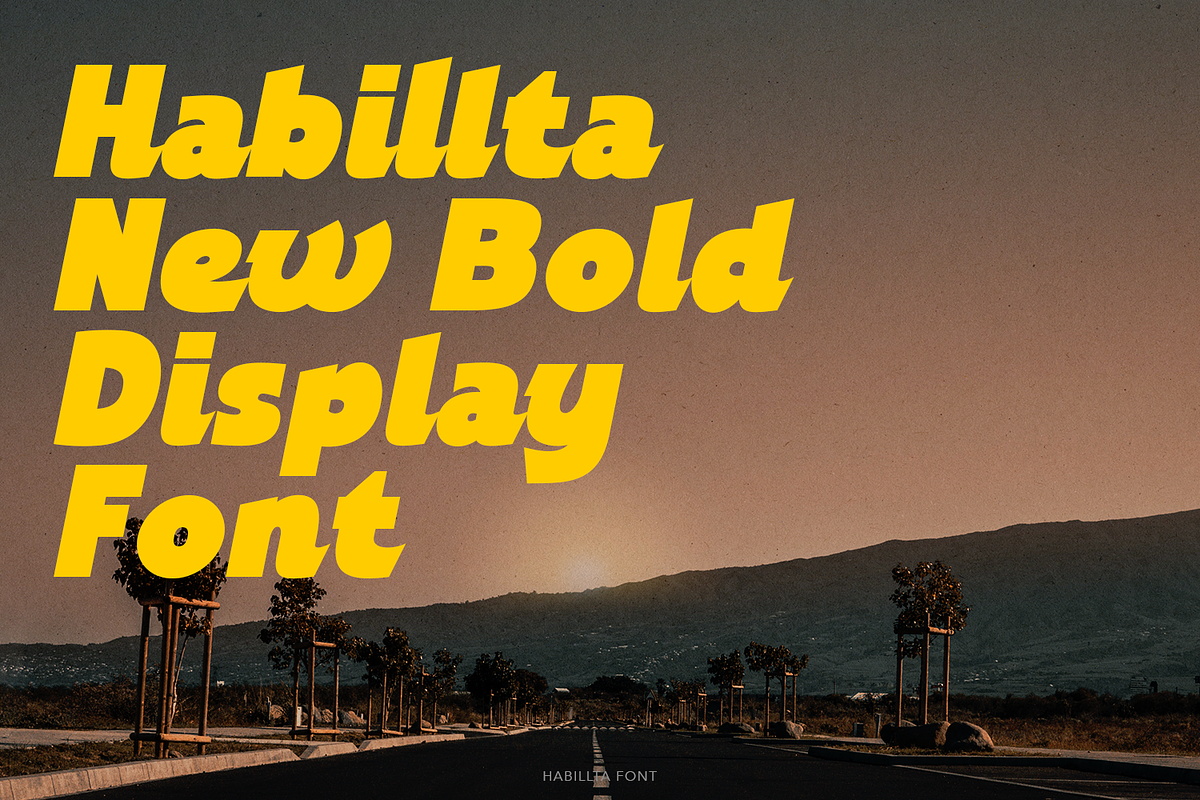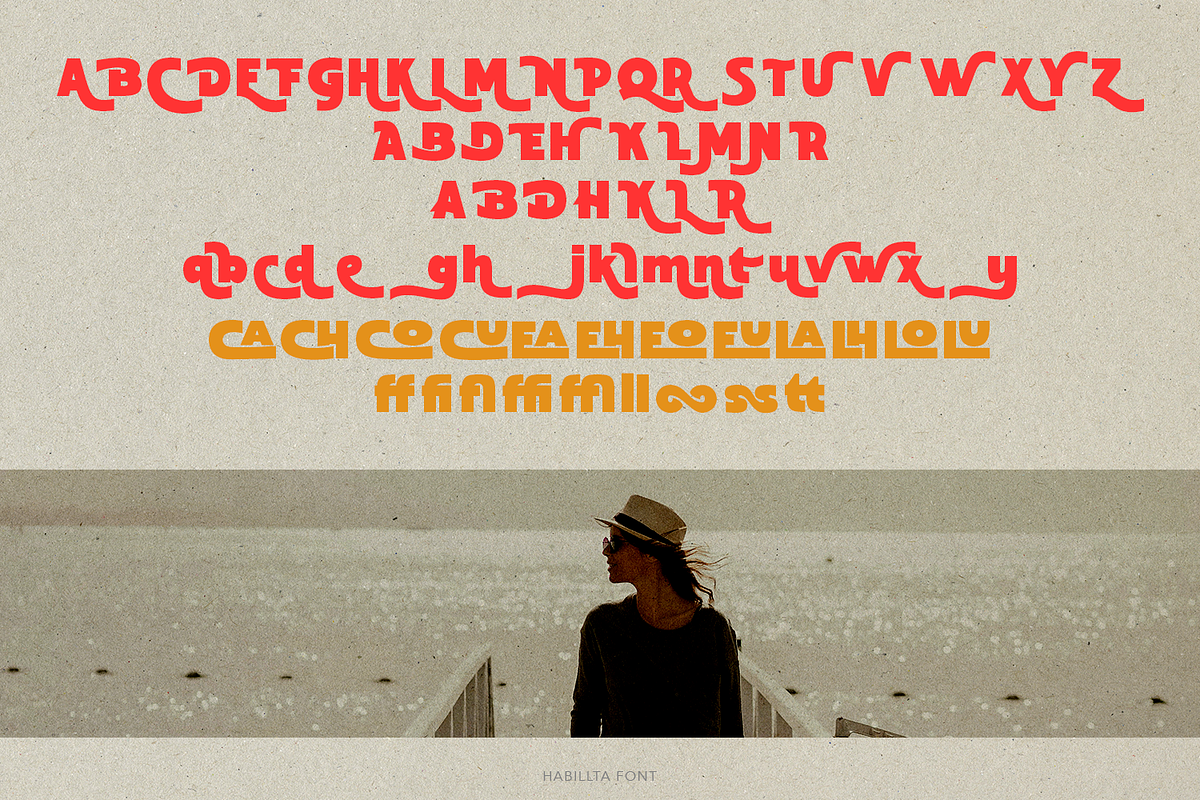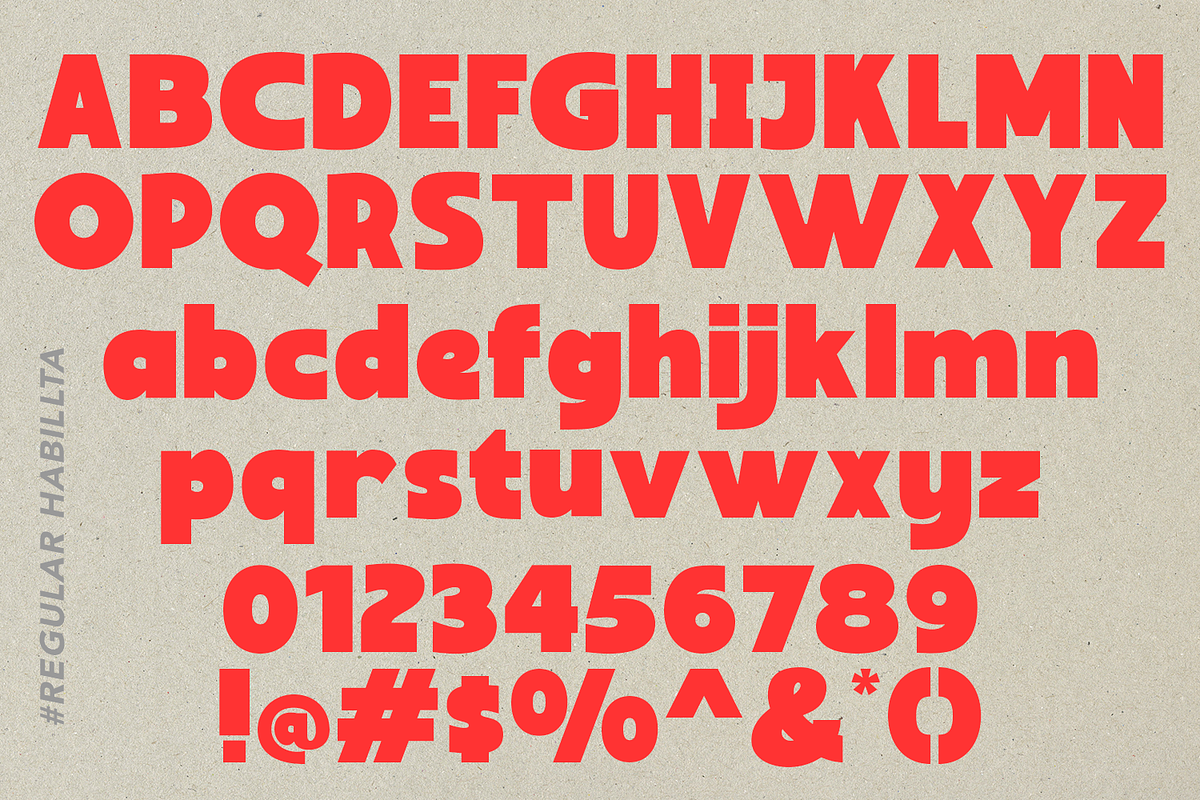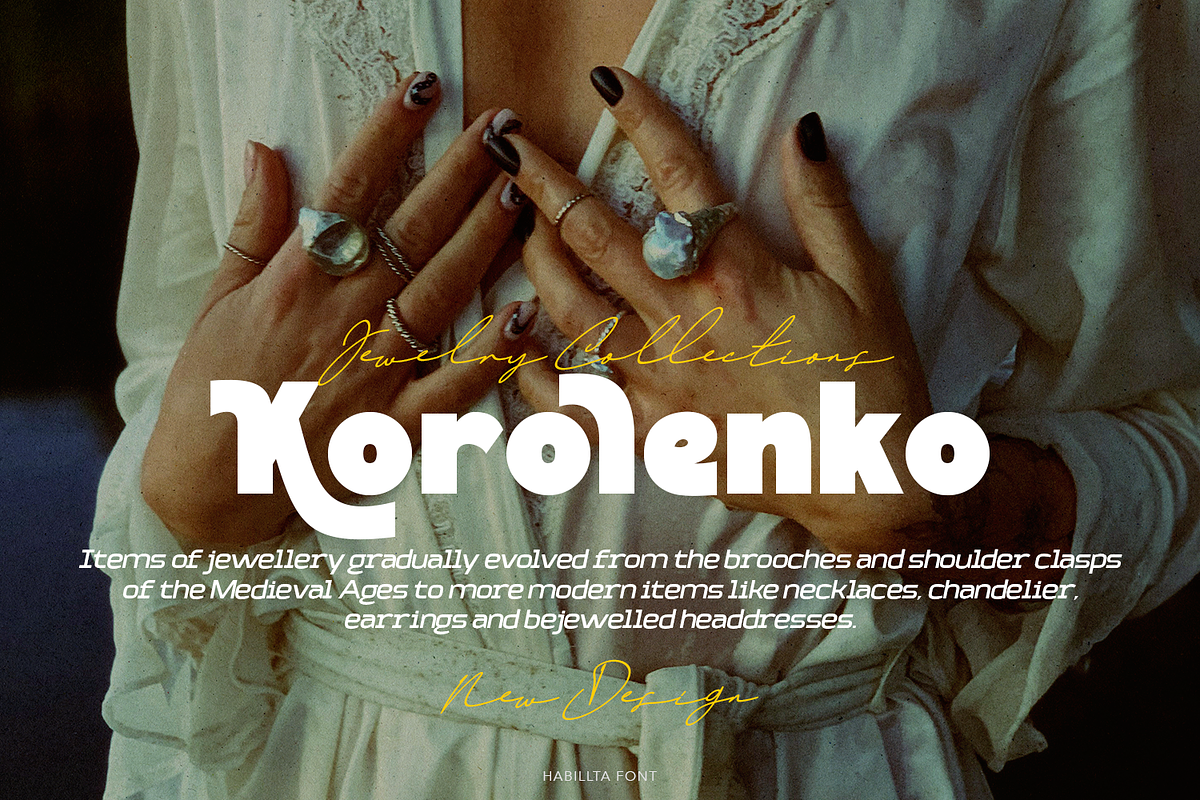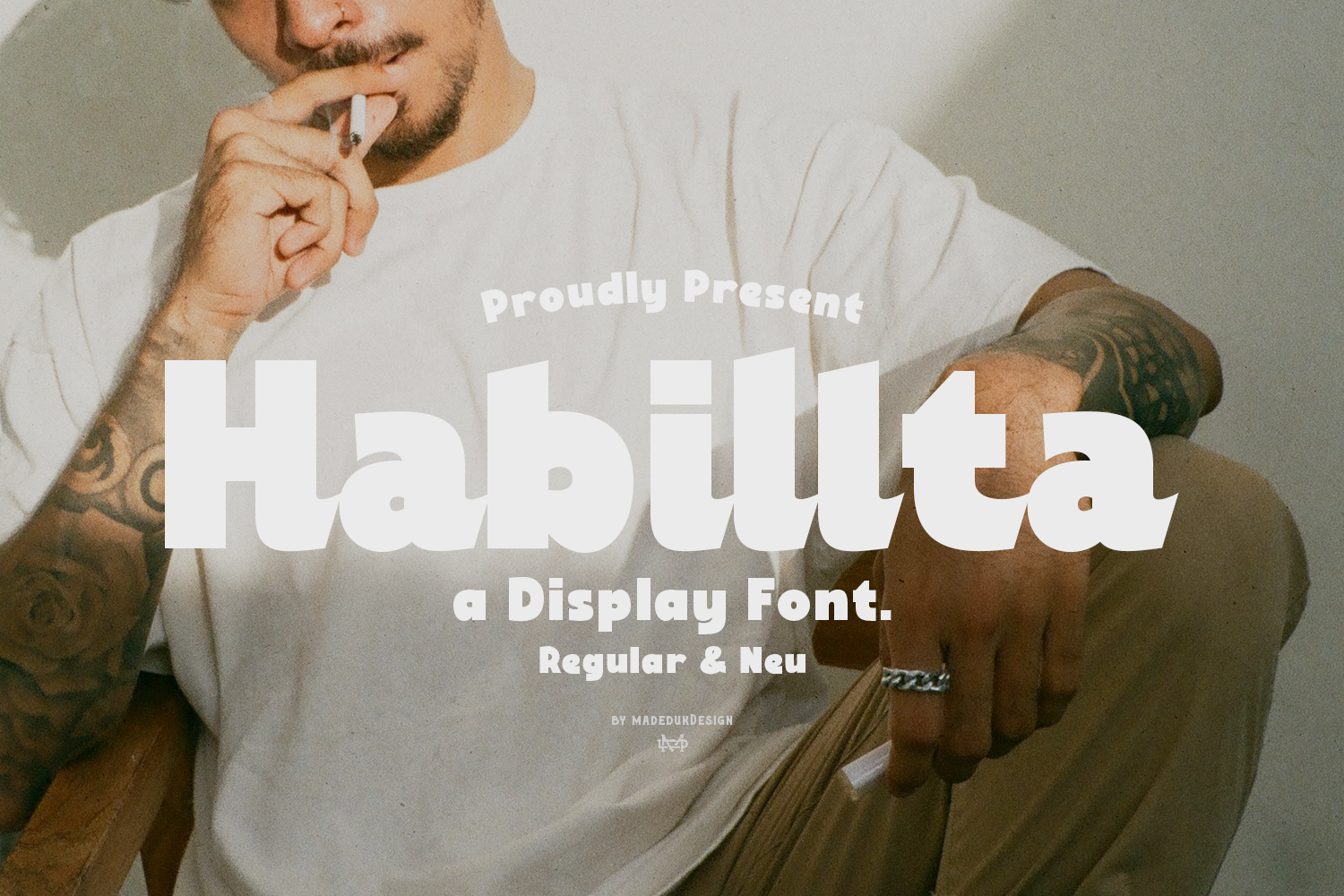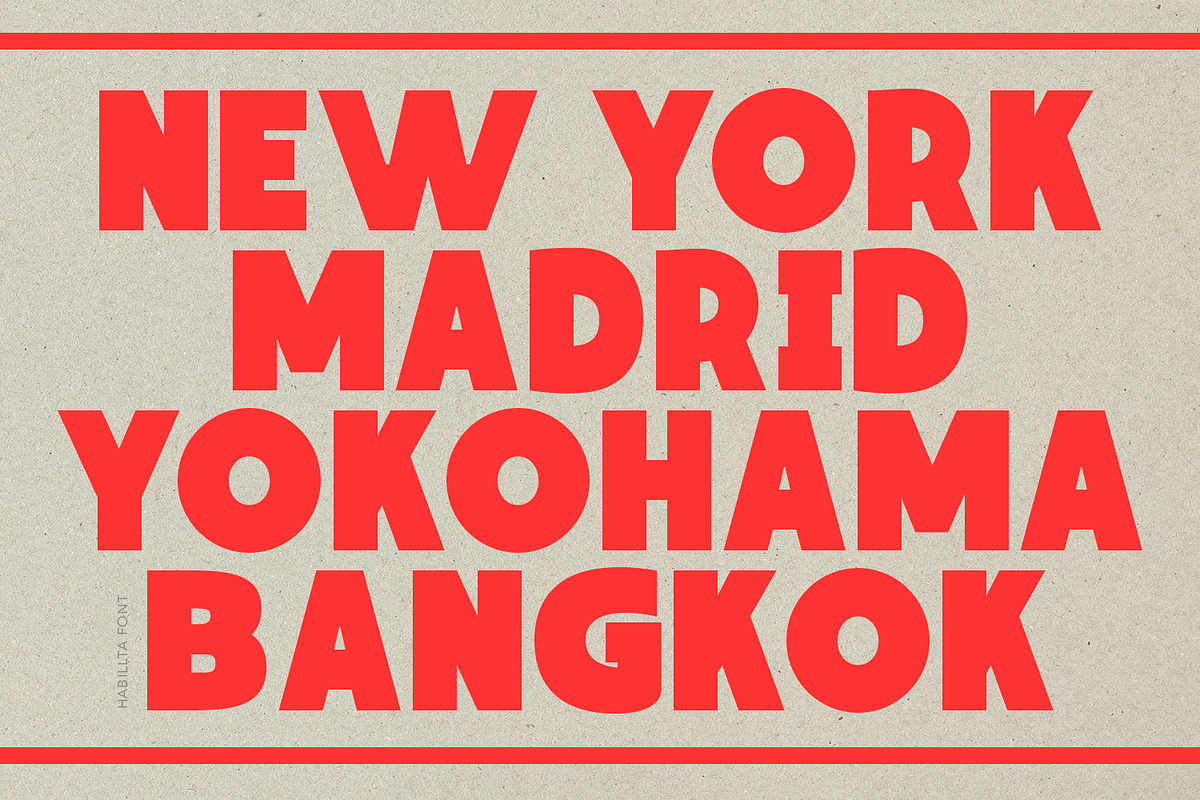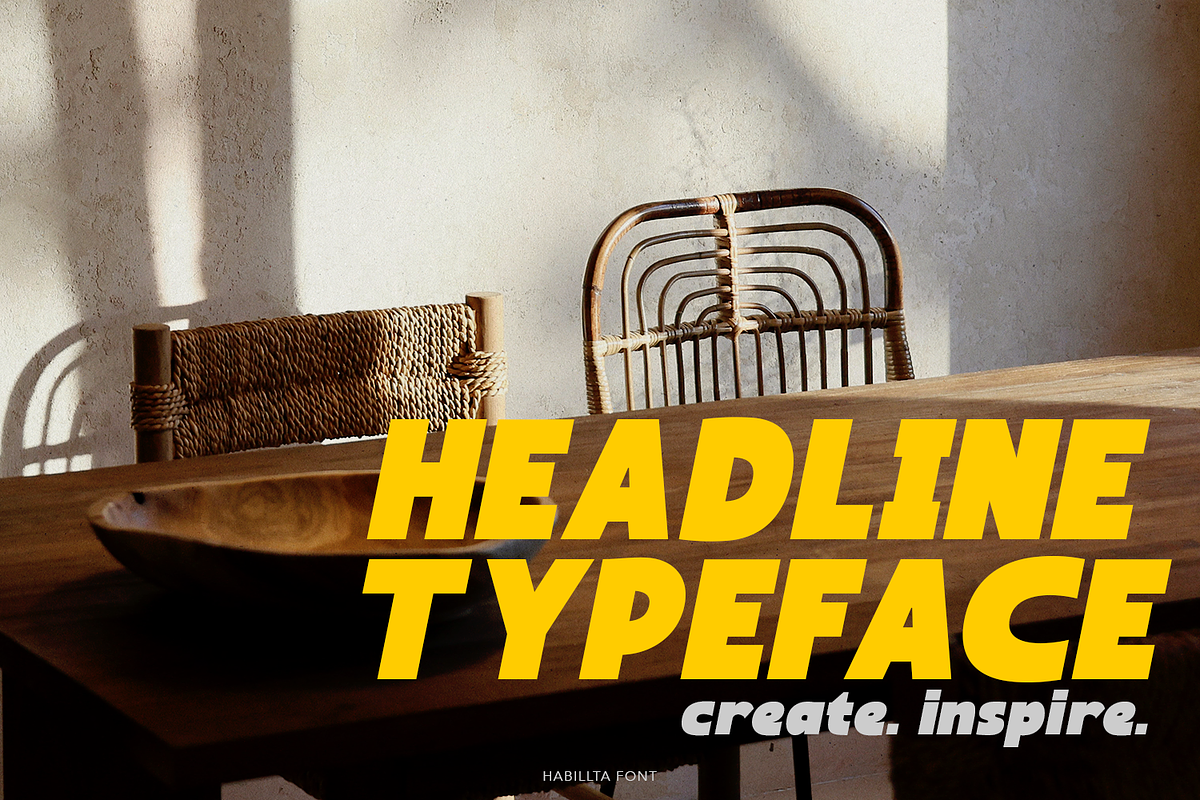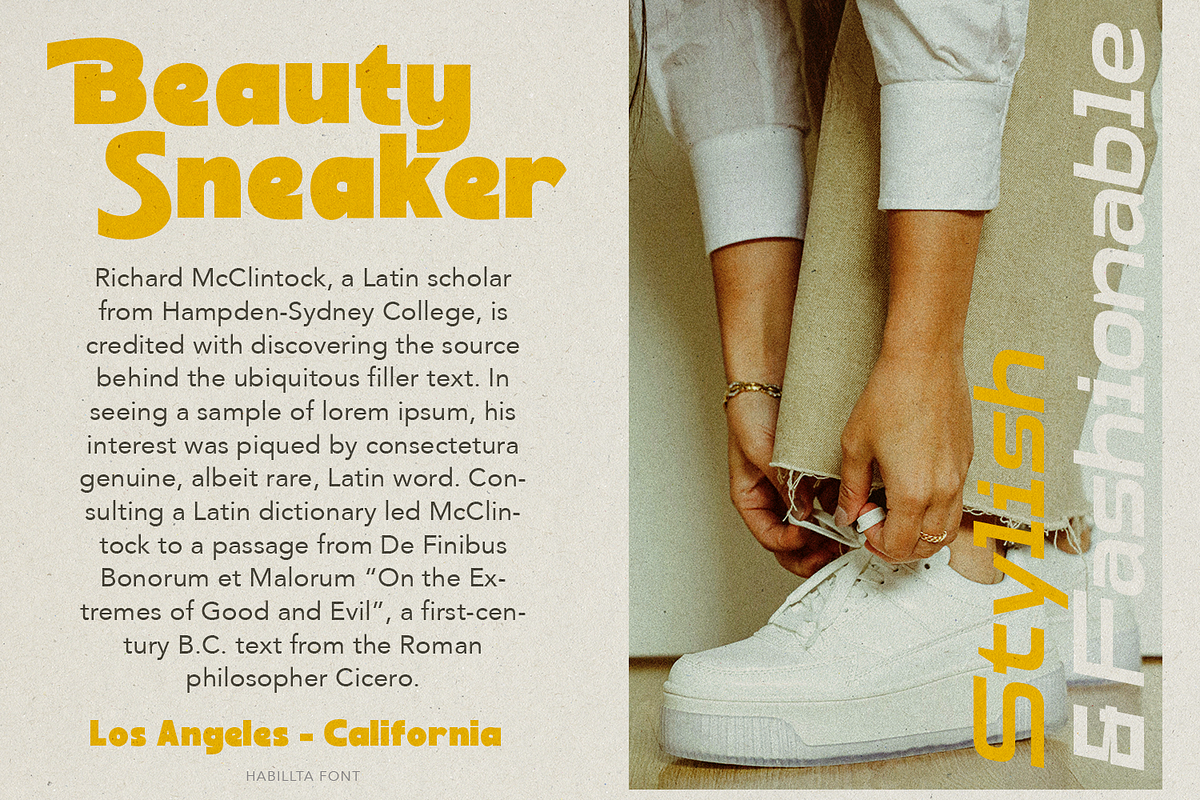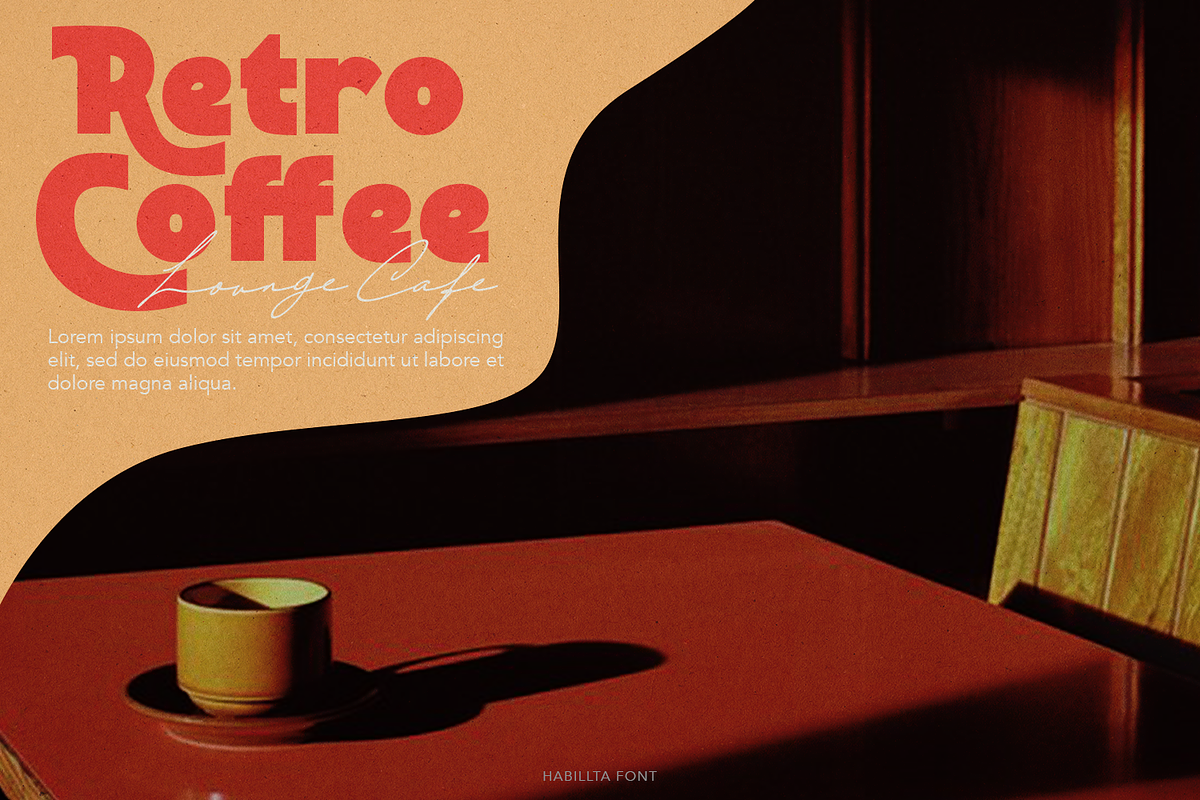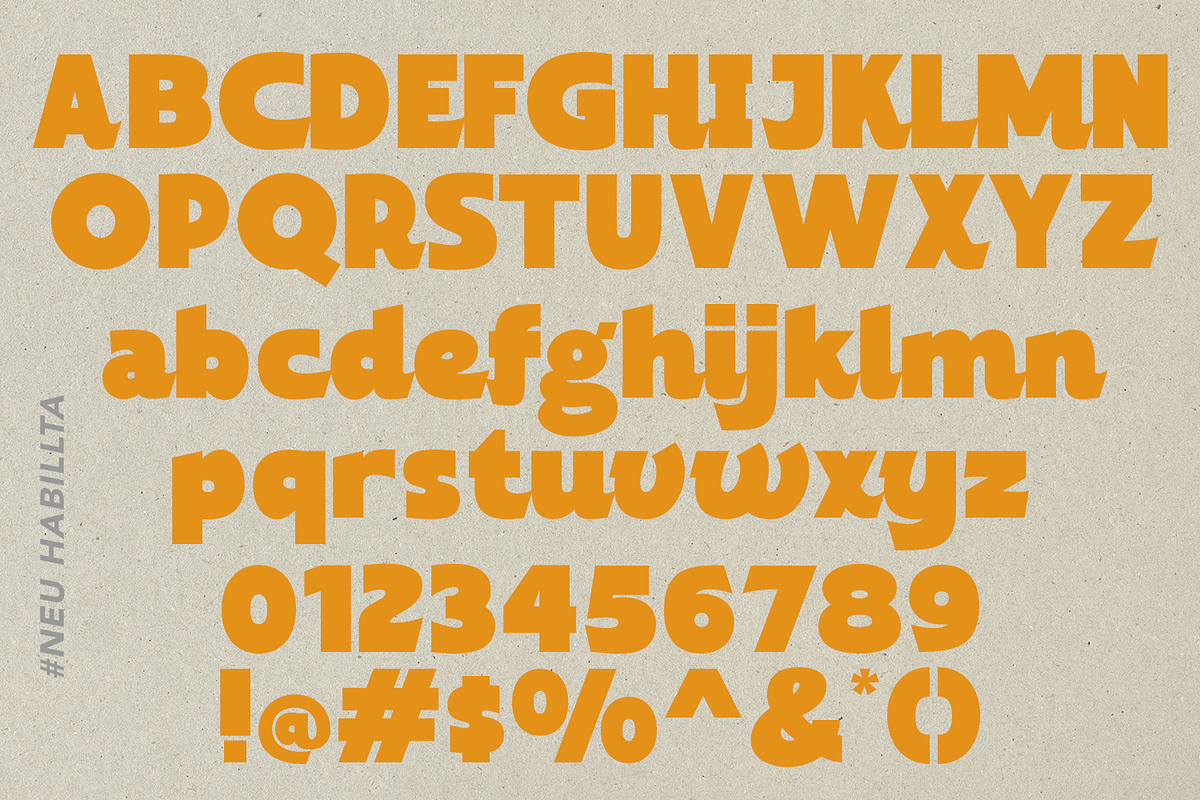
Habillta Display Font
Habillta is a display font, come with single weight, legible and expressive shapes. A lot of stylish alternates characters will makes this font suitable for your any project design.